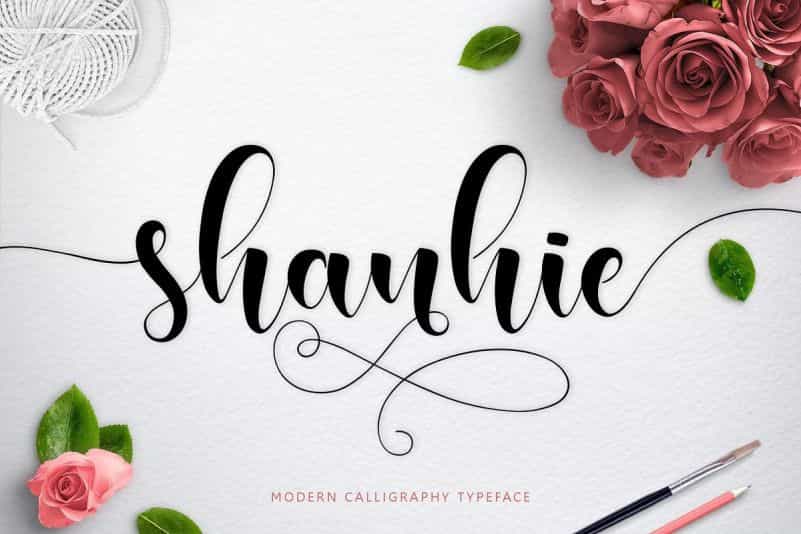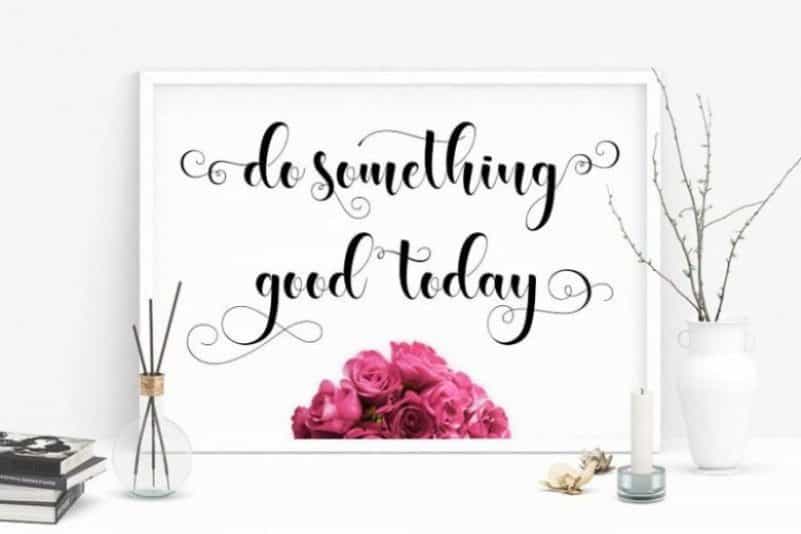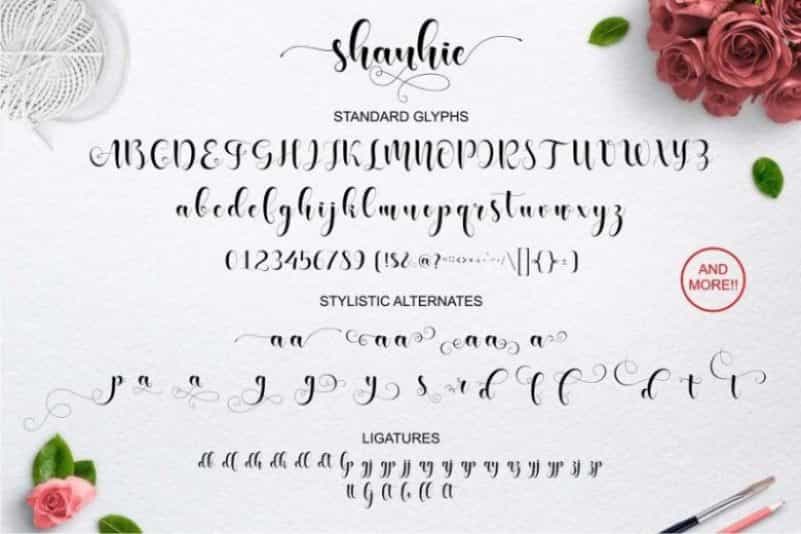
Shanhie Calligraphy Font is a contemporary calligraphy font. It is home to that old school look and a dancing baseline which makes it perfect for an elegant touch in your designs. It is a new and modern script with a handmade calligraphy style, decorative characters and a dancing baseline. Thus, it is so suitable on invitations like greeting cards, branding materials, business cards, quotes and posters.